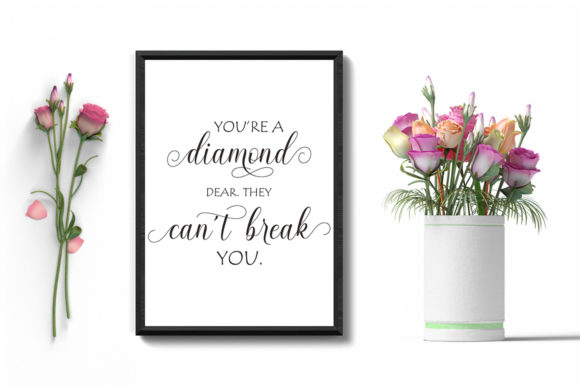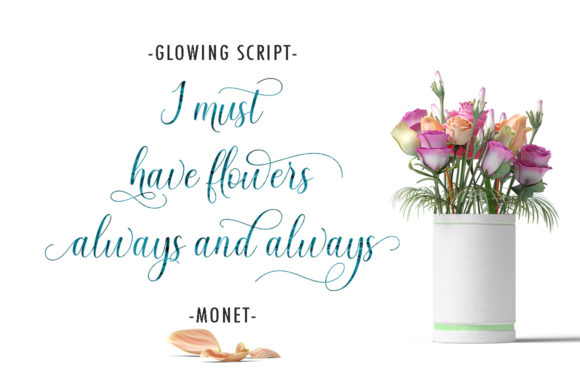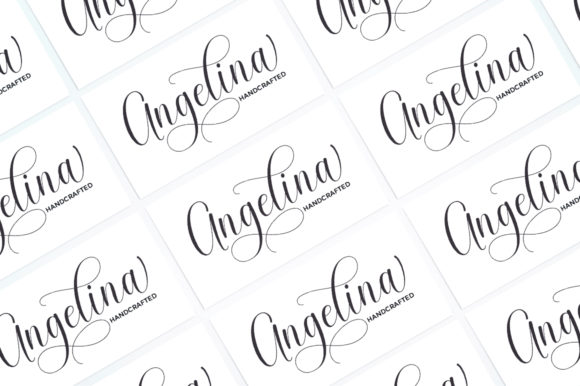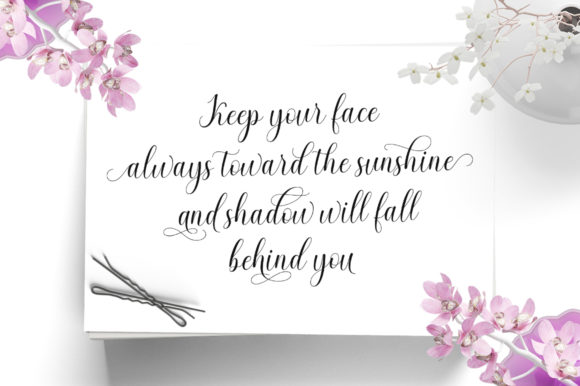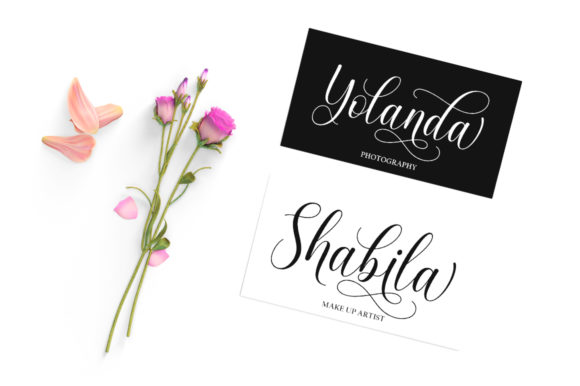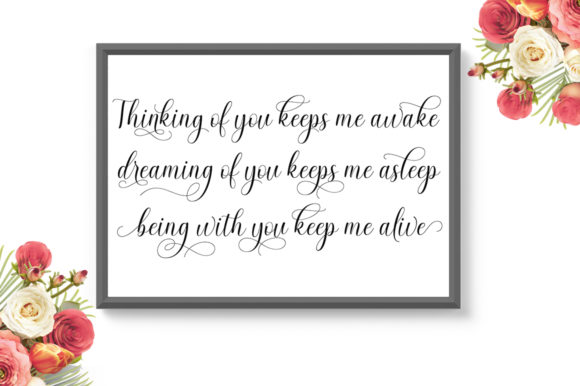
Introducing Glowing: The Romantic and Elegant Handwritten Font
Are you looking for a font that exudes romance and elegance? Look no further than Glowing, a beautiful handwritten font that’s perfect for adding a touch of sophistication to your designs. In this article, we’ll take a closer look at Glowing and explore its features, benefits, and uses.
What is Glowing Font?
Glowing is a romantic and elegant handwritten font that’s designed to bring a touch of whimsy and joy to your designs. Its dainty and delicate strokes make it ideal for writing wedding invitations, cards, and other designs that require a personal and romantic touch.
Whether you’re a designer, crafter, or DIY enthusiast, Glowing is the perfect font for you. Its elegant and refined aesthetic makes it suitable for a wide range of projects, from wedding stationery to branding and packaging.
Features of Glowing Font
So, what makes Glowing font so special? Here are some of its key features:
- PUA Encoded: Glowing font is PUA (Private Use Area) encoded, which means you can access all of its glyphs and swashes with ease. This makes it easy to use and customize the font to suit your needs.
- Handwritten Style: Glowing font has a beautiful handwritten style that’s both elegant and refined. Its delicate strokes and flourishes make it perfect for adding a personal touch to your designs.
- Romantic and Whimsical: Glowing font has a romantic and whimsical feel that’s perfect for wedding invitations, cards, and other designs that require a touch of elegance and sophistication.
Benefits of Using Glowing Font
So, why should you choose Glowing font for your designs? Here are some of its benefits:
- Elegant and Refined: Glowing font adds an elegant and refined touch to your designs, making them perfect for special occasions and events.
- Customizable: With its PUA encoding, Glowing font is easy to customize and use. You can access all of its glyphs and swashes to create unique and personalized designs.
- Versatile: Glowing font is versatile and can be used for a wide range of projects, from wedding stationery to branding and packaging.
Uses of Glowing Font
So, what can you use Glowing font for? Here are some ideas:
- Wedding Invitations: Glowing font is perfect for writing wedding invitations, save-the-date cards, and other wedding stationery.
- Cards and Stationery: Use Glowing font to create beautiful cards, stationery, and gift tags for special occasions.
- Branding and Packaging: Glowing font can be used for branding and packaging projects, such as labels, packaging, and product design.
- DIY Projects: Glowing font is perfect for DIY enthusiasts who want to add a personal touch to their projects, such as scrapbooking, journaling, and crafting.
In conclusion, Glowing font is a beautiful and elegant handwritten font that’s perfect for adding a touch of romance and sophistication to your designs. With its PUA encoding, customizable glyphs and swashes, and versatile uses, Glowing font is a must-have for designers, crafters, and DIY enthusiasts.